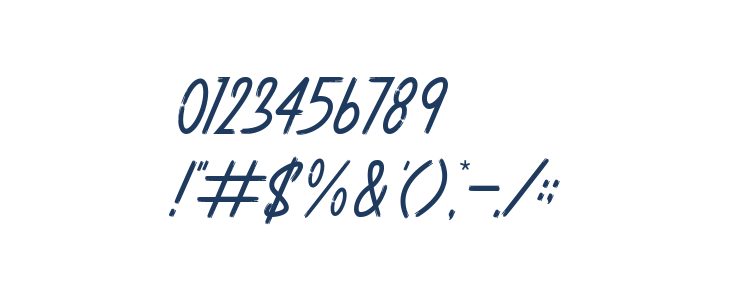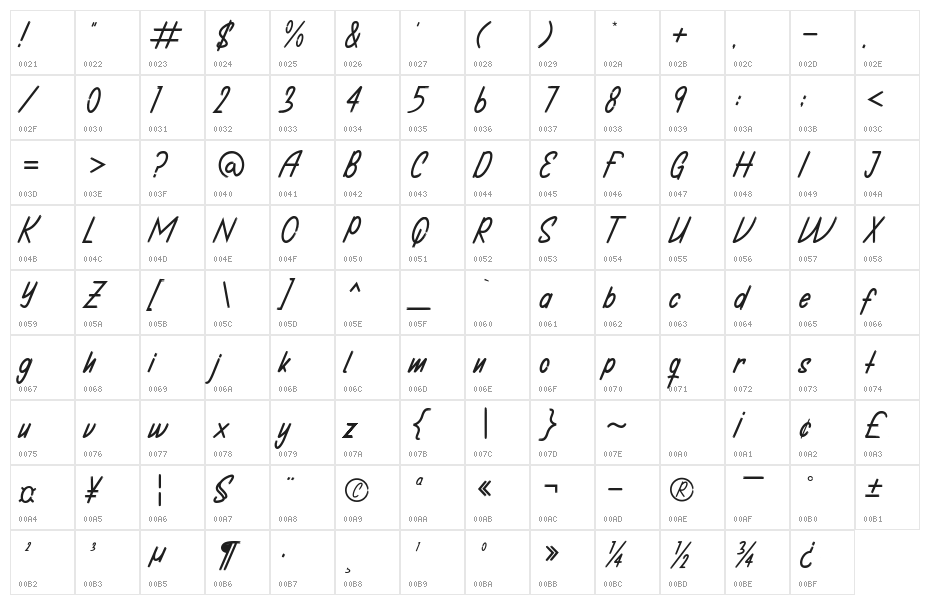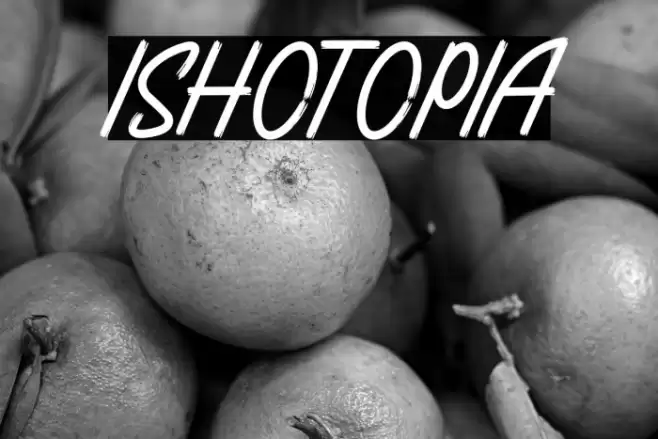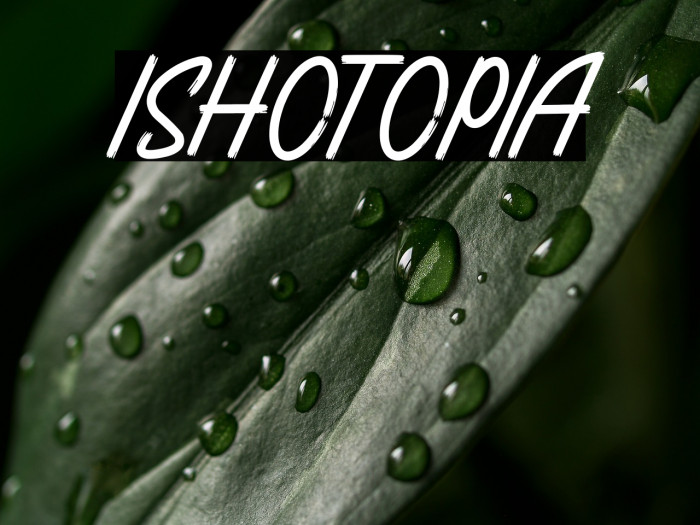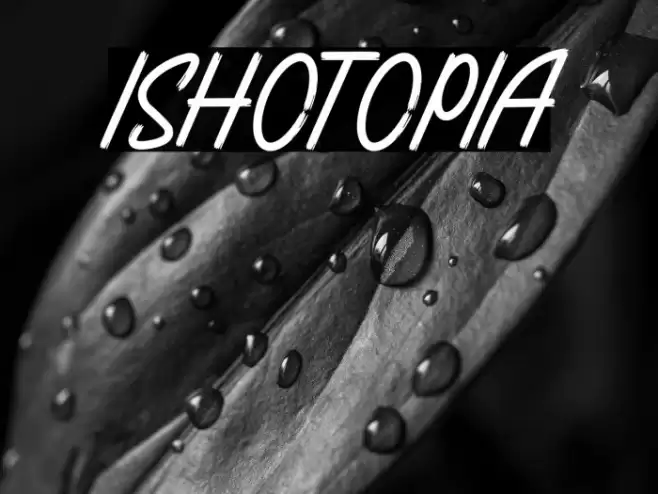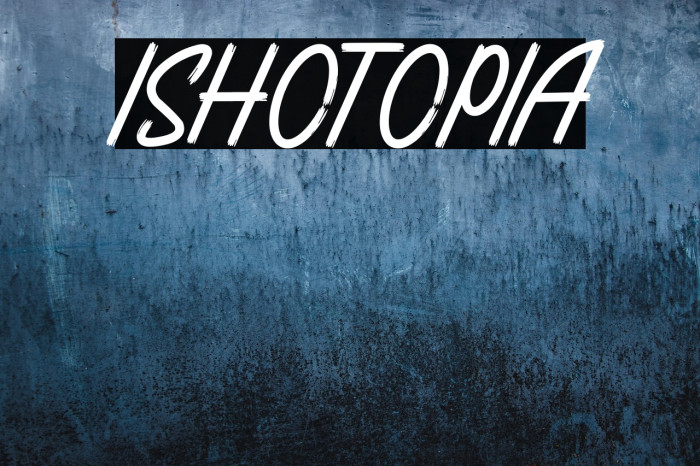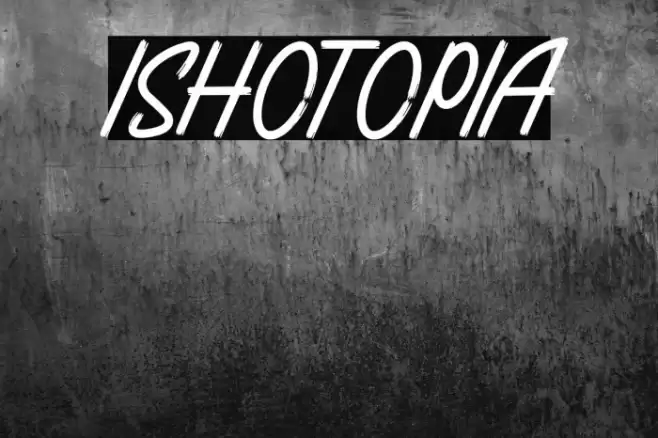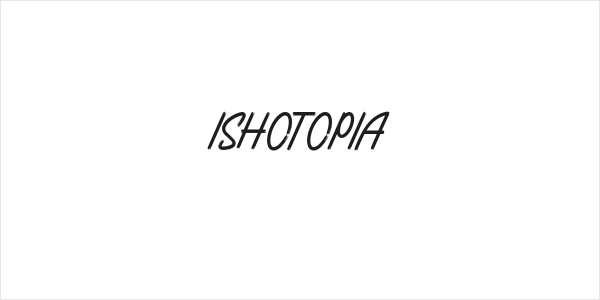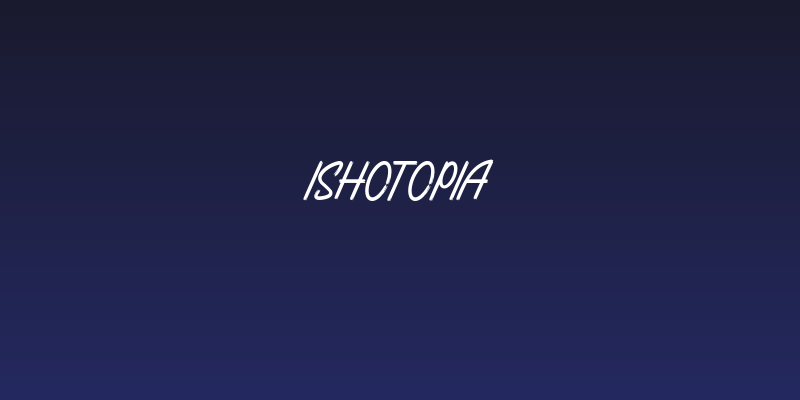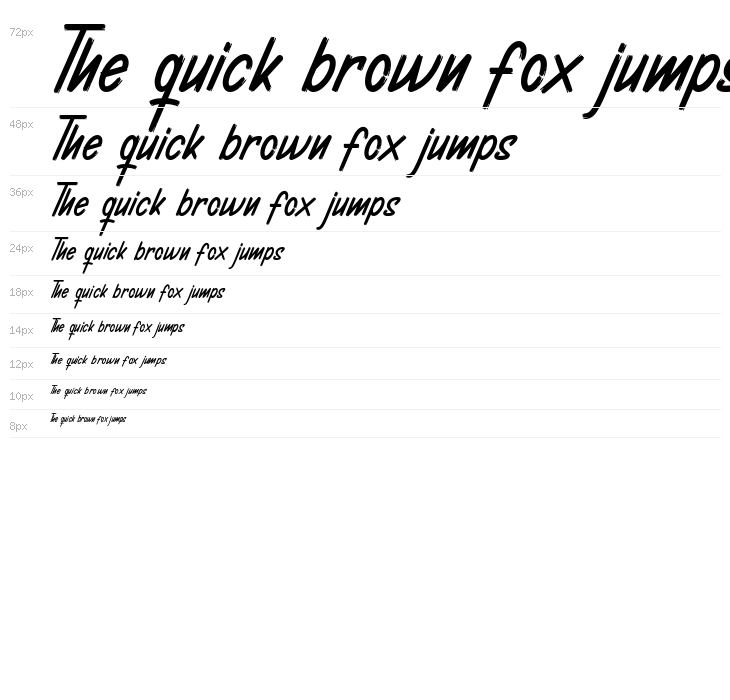
ISHOTOPIA Font
ISHOTOPIA Description
This font features a dynamic and energetic script style, characterized by its slanted, flowing letters that mimic a handwritten feel. The strokes are bold and expressive, with a brush-like texture that adds a sense of movement and flair. The uppercase letters are tall and slightly condensed, while the lowercase letters maintain a consistent rhythm and flow. Numbers and special characters are designed to match the lively style, making them suitable for attention-grabbing displays. The overall aesthetic is modern and artistic, perfect for projects that require a personal touch.
| Proposed Projects | Ideal for branding, posters, invitations, and any design needing a personal, artistic touch. |